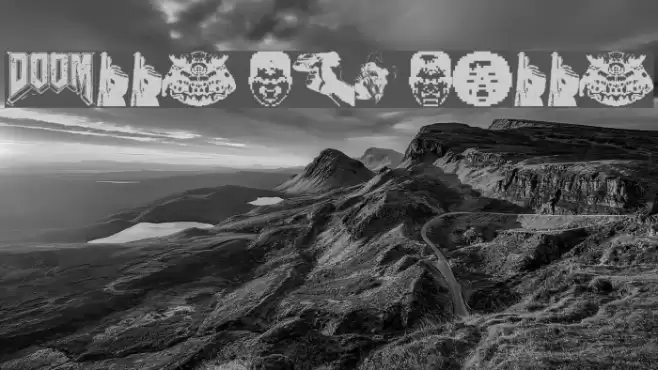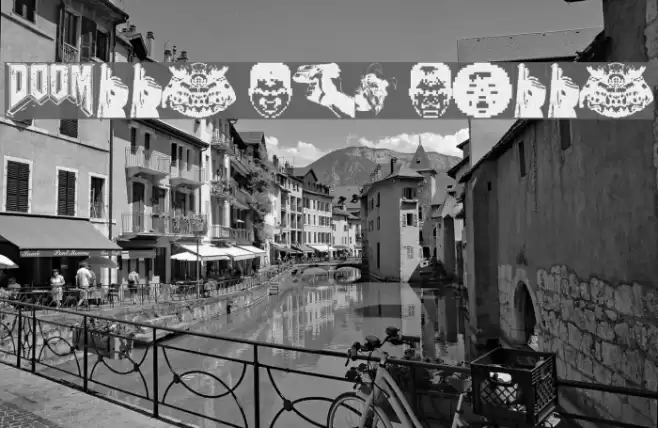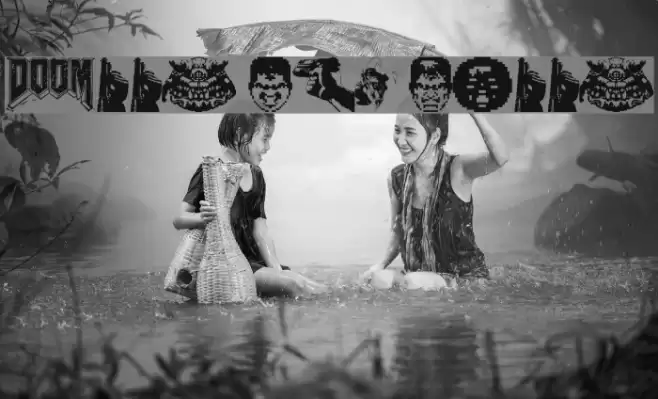
Doom And Gloom Font
Doom And Gloom Description
A highly decorative and thematic display font featuring bitmap-style illustrations and character faces inspired by a classic video game, with each glyph representing a unique graphic or character rather than traditional letterforms.
A display font composed of game-inspired bitmap illustrations and character faces from Dingbats fonts.
- Proposed Projects: Video game fan art, themed posters, event flyers, novelty merchandise, digital artwork.
- Overall Style: Decorative, Thematic, Retro
- Use Case: Logos, Posters, Themed Graphics, Titles